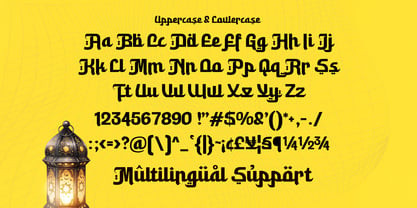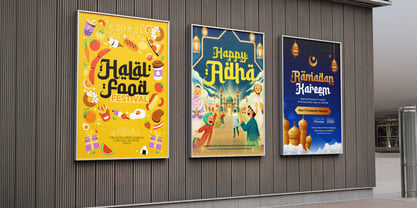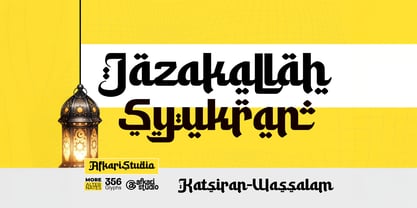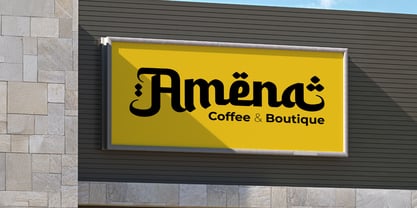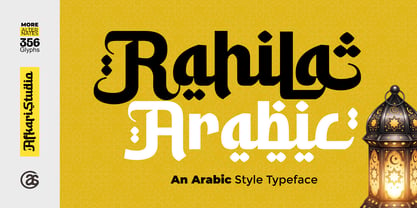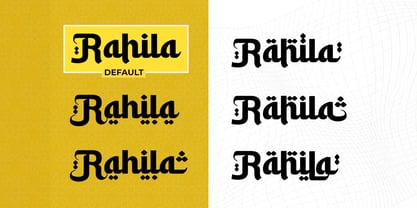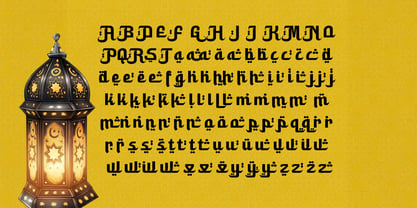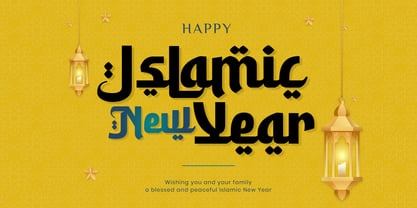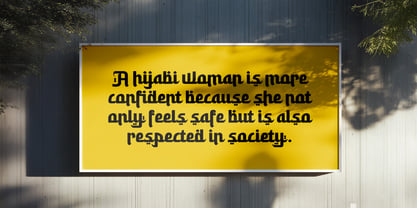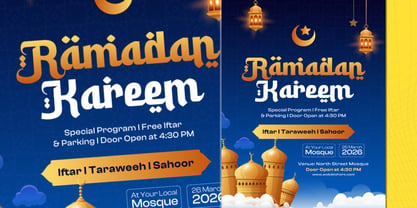
Rahila Arabic
Die Schriftfamilie Rahila Arabic wurde von Musthafa Kamal Emje entworfen und von Afkari Studio veröffentlicht. Rahila Arabic enthält 1 Stile. Mehr über diese Familie
An elegant Arabic-style typeface inspired by traditional calligraphy and cultural beauty. Rahila Arabic is an elegant Arabic-style typeface inspired by the beauty and character of traditional Arabic calligraphy. Designed with expressive letterforms and cultural depth, this font brings a strong Middle Eastern identity while remaining versatile for modern design applications. Rahila Arabic blends decorative Arabic aesthetics with a contemporary typographic structure, making it suitable for both classic and modern compositions. Its distinctive shapes add character, rhythm, and authenticity—perfect for designs that require cultural presence and visual impact. This typeface is ideal for creatives who want typography that feels cultural, elegant, and expressive. Features; - Uppercase, Lowercase, Number, and Punctuation - Special Alternates and ligatures - Works on PC & Mac, Simple installations - Accessible in Adobe Illustrator, Adobe Photoshop, Adobe InDesign, and even work on Microsoft Word - PUA Encoded Characters – Fully accessible without additional design software. - Mültîlíñgúãl Sùppört for; ä ö ü Ä Ö Ü ß ¿ ¡ Add cultural elegance and expressive beauty to your designs with Rahila Arabic – An Arabic Style Typeface Font, crafted for meaningful and visually rich typography.